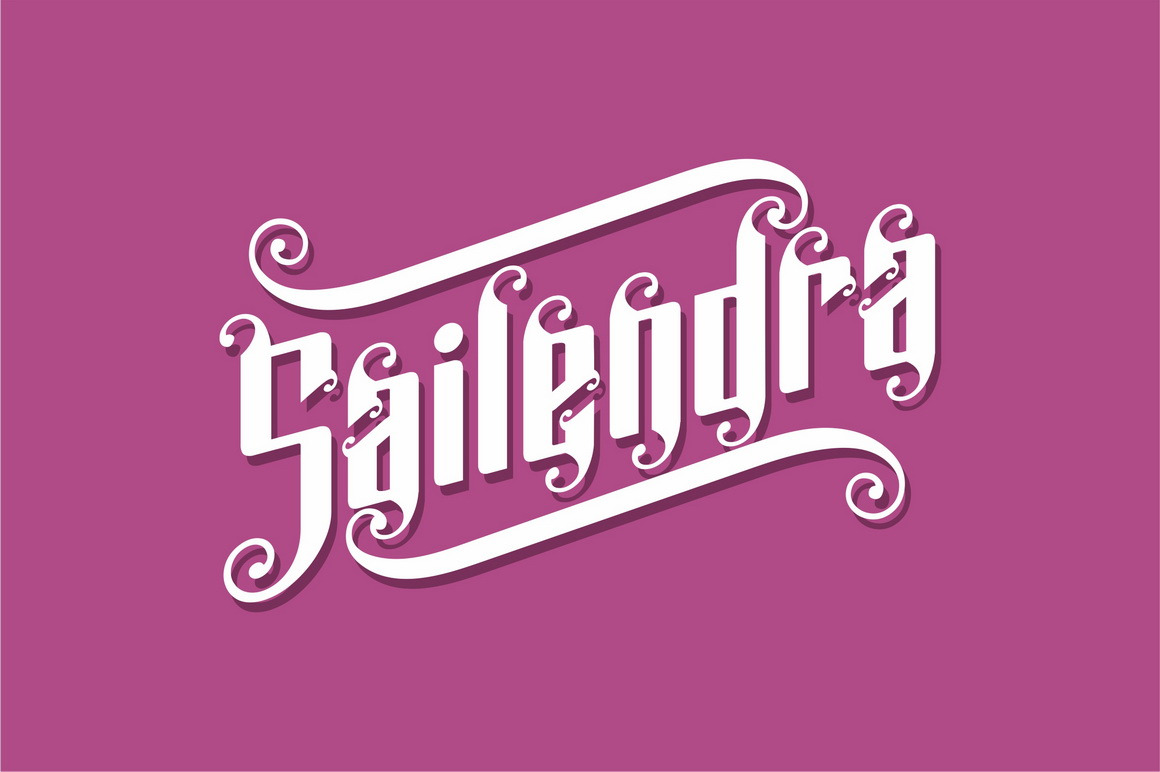
Sailendra Font
Sailendra Font is a contemporary calligraphic typeface, a mixture of retro script and modern sans serif. get a classic and elegant touch. Can be used for various purposes.such as logos, wedding invitation, t-shirt, letterhead, signage, lable, news, posters, badges etc.